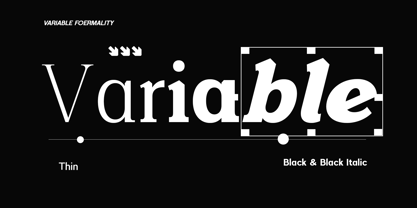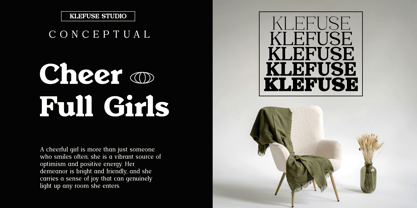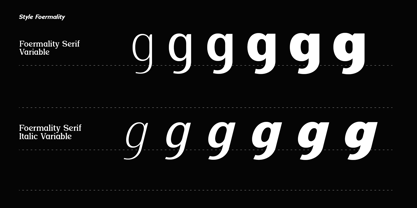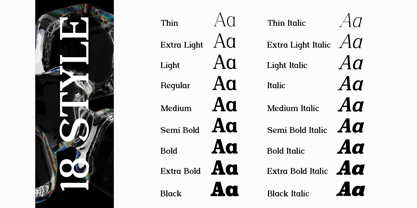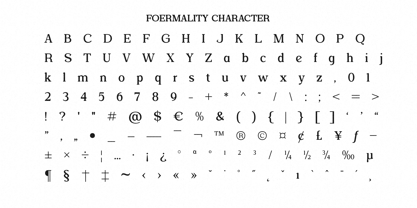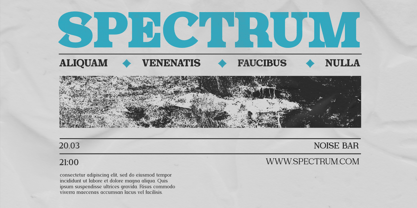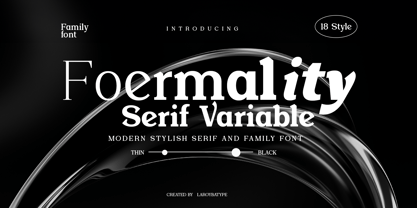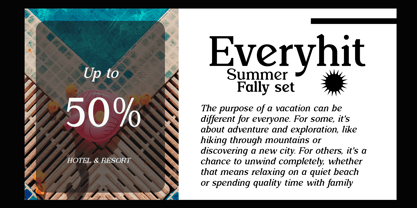
Foermality Serif Variable
The Foermality Serif Variable Font Family was designed by Habib Abdur Rofi and published by Laroyba Type. Foermality Serif Variable contains 2 styles and family package options. More about this family
Foermality Serif Variable blends classic serif elegance with the power of modern variable font technology. Designed with carefully balanced contrast and refined serif details, this typeface delivers a sophisticated and timeless character while maintaining versatility for contemporary design. Through its variable weight axis, Foermality Serif smoothly transitions from lighter text styles to bold display expressions, making it suitable for both body text and impactful headlines. The italic variable introduces graceful movement and editorial charm, perfect for emphasizing content while maintaining typographic harmony. Foermality Serif Variable is ideal for projects that require a balance between tradition and modern flexibility—combining classic typographic beauty with cutting-edge font technology. Perfect for: Editorial and publishing Luxury branding Book and magazine typography Elegant packaging Corporate identity Features Variable weight axis Variable italic axis Elegant serif construction Excellent readability for text and display Classic yet contemporary style Foermality is a versatile superfamily consisting of Sans, Serif, and Rounded styles, designed to work beautifully together across a wide range of design applications.